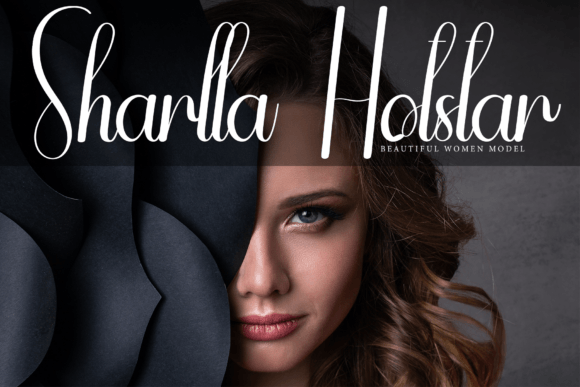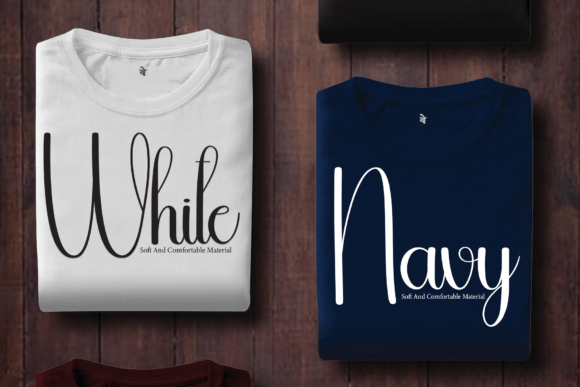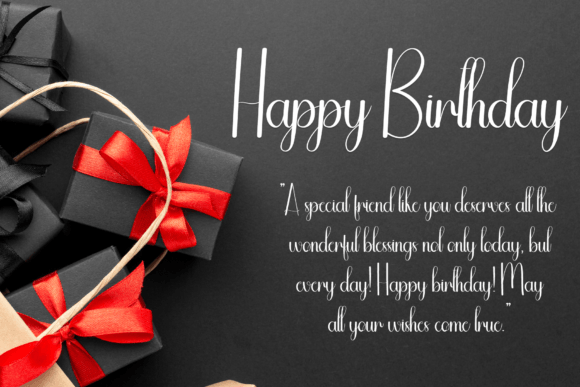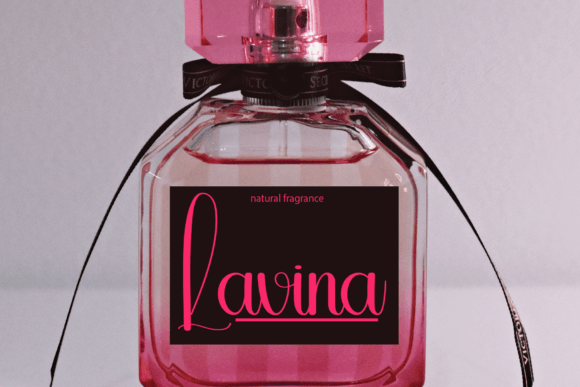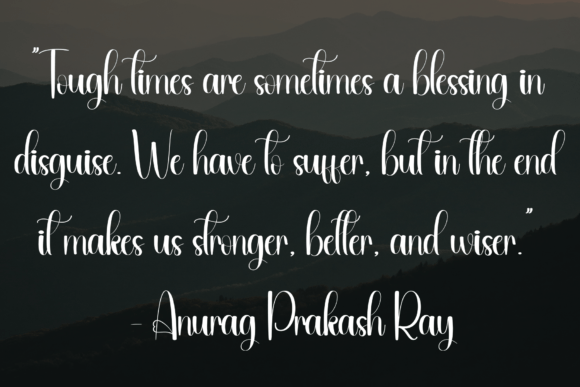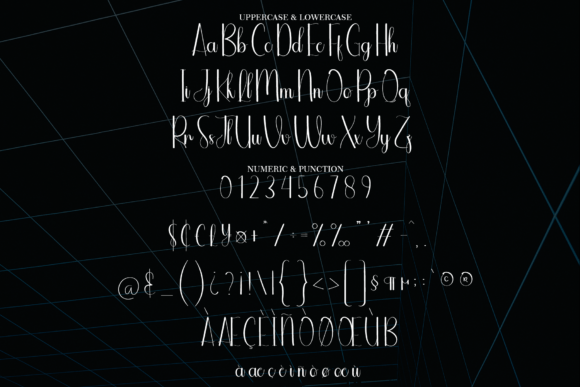
Introduction to Line Space Font
Have you ever stumbled upon a font that makes you feel like a kid in a candy store, eager to create something magical? For many designers, this moment is a treasure to behold, and the Line Space Font is a prime example of a design resource that can evoke such excitement.
Whether you’re crafting wedding invitations, designing greeting cards, or working on any other creative project, the Line Space Font is an ideal choice for adding a touch of sweetness and friendliness to your work. Its fresh and neat aesthetic is sure to captivate your audience and leave a lasting impression.
Key Features of Line Space Font
- High-quality design resource for creative projects: Line Space Font is a premium font designed to elevate your visual content.
- Perfect for digital and print projects: Line Space Font is suitable for both digital and print projects, making it an excellent addition to any design resource library.
Honest Review: Line Space Font
I recently came across the Line Space Font, and I must say, it’s been a game-changer for my design projects. The moment I downloaded this high-quality font, I knew I had found a valuable design resource.
What works well: ✨ The font’s clean and minimalist design makes it perfect for creative projects that require a touch of elegance. The transparent background allows for seamless integration with any background image or color, giving me more flexibility in my designs. The font is also incredibly versatile and can be used for a wide range of applications, from headings to body text.
What doesn’t work so well: ⚠️ The font’s limited character set is a major drawback for me. While it’s not a deal-breaker, it would be great to see more characters and glyphs added to the font in future updates.
Overall, I’m thoroughly impressed with the Line Space Font. It’s a great addition to my design arsenal, and I highly recommend it to anyone looking for a high-quality, free download font for their creative project.
- Font style: Clean and minimalist
- Limited character set: ⚠️
Use Line Space Font to add a touch of elegance and sophistication to your design.
Experiment with different font sizes and colors to create a unique look.
Combine Line Space Font with other design elements to create a cohesive and visually appealing design.
Use Line Space Font for:
1. Wedding invitations and stationery.
2. Business cards and marketing materials.
3. Creative projects and artistic expressions.